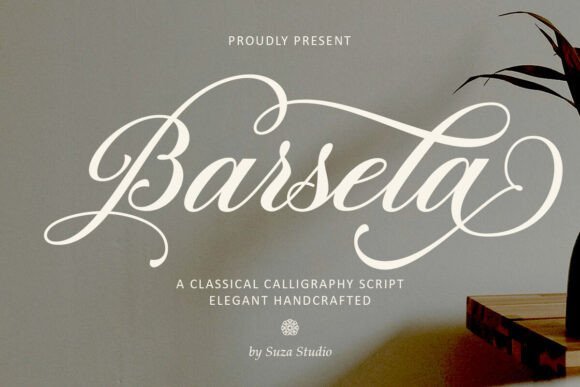
The Art of Elegant Expression: Barsela Calligraphy Font
Have you ever sat down with a cup of coffee, a blank sheet of paper, and a pen, only to find yourself lost in the flow of creative expression? For designers, this moment of pure imagination is where the magic happens. And for those who crave elegance and sophistication in their designs, there’s one font that stands out from the rest: the Barsela Calligraphy Font.
With its beautiful alternate characters and a unique blend of copper calligraphy and hand-lettering style, Barsela Calligraphy Font is the perfect tool for creating stunning designs that exude luxury and refinement. Whether you’re working on a high-end fashion project, a romantic novel, or a wedding invitation, this font is sure to elevate your design game. Its smooth, clean, and feminine style makes it easy to read and use, making it a valuable addition to any designer’s toolkit.
Barsela Calligraphy Font Key Features
- Font Family: Barsela is a beautiful calligraphy font that includes a variety of styles and weights to suit different design needs.
- Unique Characteristics: The font features elegant, flowing lines and subtle flourishes, making it perfect for creating eye-catching headings, titles, and decorative text.
Designer Review: Barsela Calligraphy Font
First off, I want to say that I’m really impressed with the Barsela Calligraphy Font. ✨ The font’s elegant and cursive style makes it perfect for creating beautiful, high-end designs. The font’s versatility shines through in its ability to work well in a variety of contexts, from wedding invitations to luxury branding materials. ✨ The Barsela Calligraphy Font’s unique flair and sophistication are sure to elevate any design project.
However, I do want to mention a few limitations. ⚠️ For one, the font can be a bit tricky to use for smaller text sizes, as the letters can become difficult to read. Additionally, the font’s more intricate flourishes can make it challenging to use in situations where simplicity is key. ⚠️
Overall, I’m thoroughly enjoying working with the Barsela Calligraphy Font. It’s a great addition to any designer’s toolkit, and I can see myself using it in a variety of projects. If you’re looking for a font that adds a touch of elegance and sophistication to your designs, I’d definitely recommend giving Barsela a try.
- ✨ Elegant and cursive style
- ✨ Versatile and suitable for various design contexts
- ⚠️ Can be challenging to use in smaller text sizes
- ⚠️ Intricate flourishes may not be suitable for all design situations
Use the Barsela Calligraphy Font to create elegant and sophisticated headings and titles.
The Barsela Calligraphy Font is ideal for:
Business cards and brochures
Quotes and inspirational graphics
Any design that requires a elegant and sophisticated touch